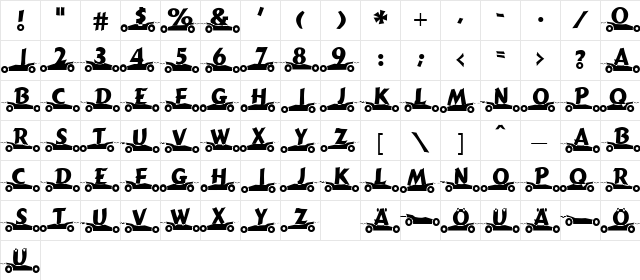
GibGas Normal
Design Context for GibGas Typeface
GibGas is a composed and adaptable typeface that performs quietly and consistently across a wide range of design contexts.